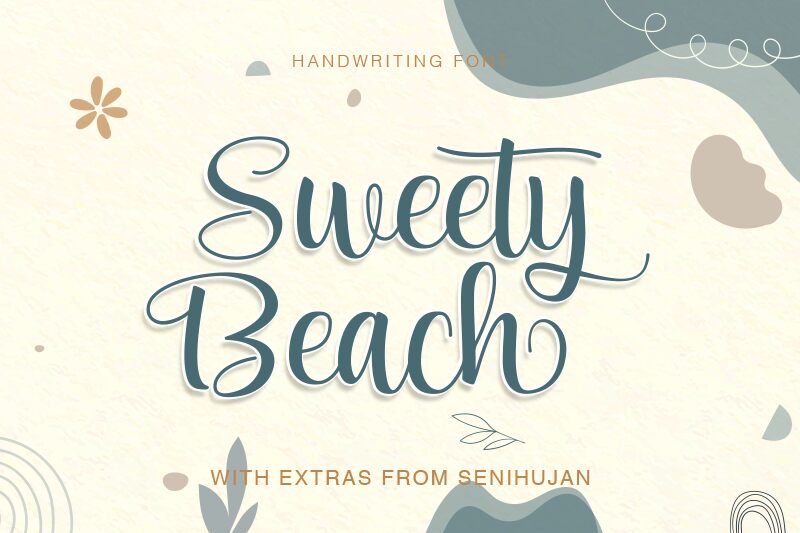
SweetyBeach Elements is a playful and whimsical dingbat font that's perfect for adding a touch of fun to any design project. Created by the talented designers at Senihujan Studio, this font family features a range of adorable beach-themed icons that are sure to delight. The SweetyBeach font is suitable for a variety of projects, including social media graphics, invitations, posters, and more. Use the semi-bold typeface to create eye-catching headlines or the regular width for body text. Whether you're designing for children or adults, SweetyBeach Elements will add a charming and unique touch to your work.
SweetyBeach Elements